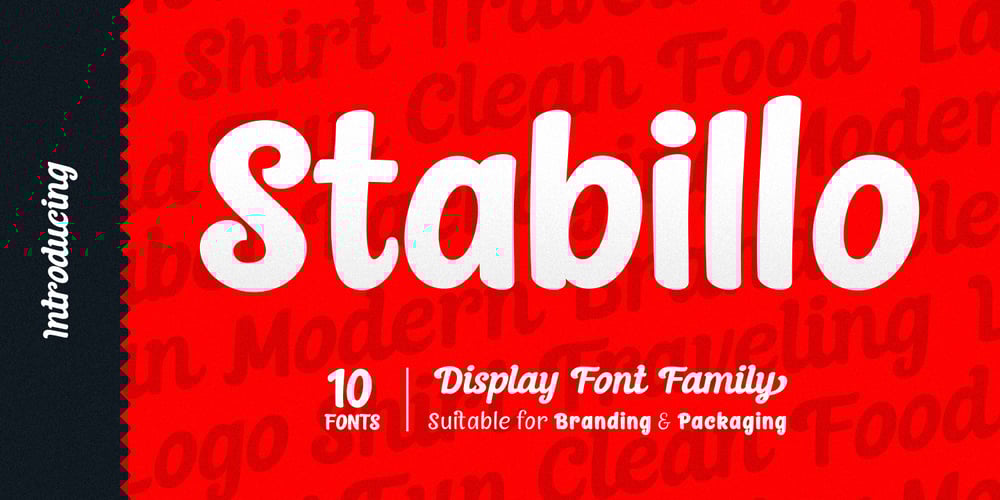
Stabillo Font Family was designed by Burhan Afif and published by HansCo. Stabillo contains 10 styles and family package options. Stabillo font family is specially designed for food logo brand identity and packaging design projects. There are several ligature in both fonts and alternate characters just in the Italic version. Some projects that are suitable for this font are food and beverage brand logo, including clothing, flyer designs, posters or brochures. Enjoy!